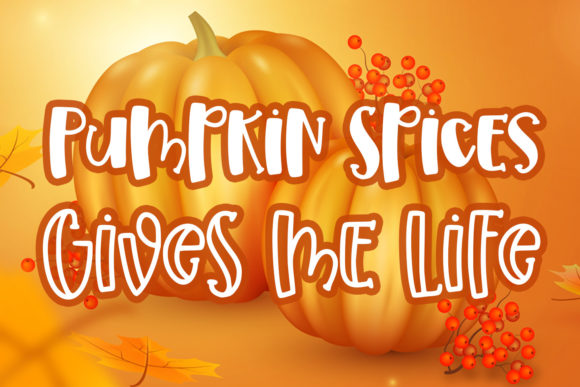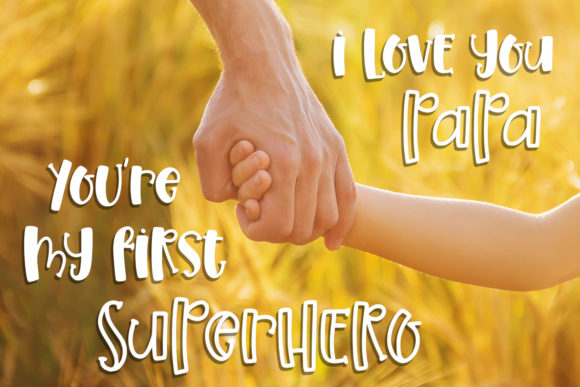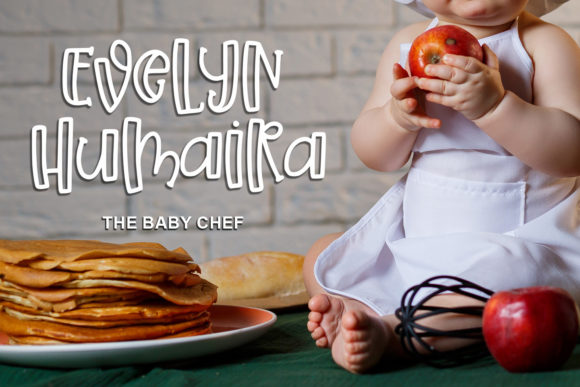
Introduction to Pumpkin Syrup Font
Have you ever been working on a creative project and felt like something was missing? A spark, a pop of color, a touch of whimsy? For designers, that something can be the perfect font. And if you’re anything like me, you’re always on the lookout for the next great design resource to elevate your work.
Enter the Pumpkin Syrup Font, a crafty and playful display font that’s sure to bring a smile to your face. With its high-quality design and transparent background, this font is a game-changer for any creative project. And the best part? It’s available for free download, making it a valuable addition to any designer’s library.
Whether you’re working on a branding project, a social media campaign, or just a fun little graphic, the Pumpkin Syrup Font is the perfect tool to help you bring your vision to life. So why settle for ordinary when you can have extraordinary? Dive in and discover the magic of the Pumpkin Syrup Font for yourself!
Pumpkin Syrup Font
- High-quality, unique design perfect for creative projects and seasonal themes.
- Features a transparent background, making it easy to layer over images and backgrounds.
- Designed with a high-resolution (300 DPI) to ensure crisp and clear text display.
- Perfect for fall-themed designs, menus, invitations, and other creative projects.
Honest Review: Pumpkin Syrup Font
I recently stumbled upon the Pumpkin Syrup Font, a free download that caught my eye with its unique and playful design. As a designer, I appreciate fonts that can add a touch of personality to a project, and this one certainly delivers.
- ✨ The font’s high quality and crisp lines make it perfect for both digital and print projects.
- ✨ The transparent background allows for easy layering and blending with other design elements.
- ✨ The font is highly versatile and can be used in a variety of creative projects, from social media graphics to branding materials.
- ⚠️ The font may not be suitable for formal or professional projects, as its playful design may not be taken seriously.
- ⚠️ The font’s unique design may not be easily readable in certain contexts, such as small text sizes or low-resolution images.
Overall, I’m impressed with the Pumpkin Syrup Font as a design resource. Its unique design and high quality make it a great addition to any creative project. While it may not be suitable for every project, it’s definitely a valuable asset to have in your design arsenal.
Pumpkin Syrup Font
The Pumpkin Syrup Font is a high-quality design resource perfect for creative projects. With a transparent background, this font is easy to use in various design platforms.
To get the most out of the Pumpkin Syrup Font, use it in combination with other design elements, such as graphics and images. Experiment with different font sizes, colors, and styles to create unique and eye-catching designs.
The Pumpkin Syrup Font is commonly used for designing seasonal and holiday-themed content, such as Halloween or Thanksgiving graphics, invitations, and social media posts. It can also be used for creating food-related designs, such as recipes or restaurant menus.
Comparison: Gingerbread Font is more versatile than Pumpkin Syrup Font, offering a wider range of font styles and sizes. However, it may lack the unique, whimsical touch that Pumpkin Syrup Font provides.